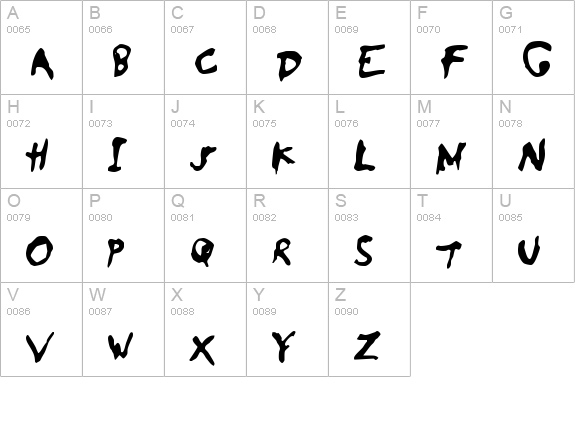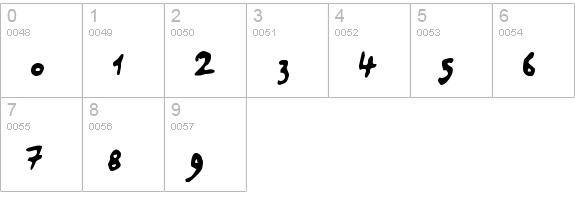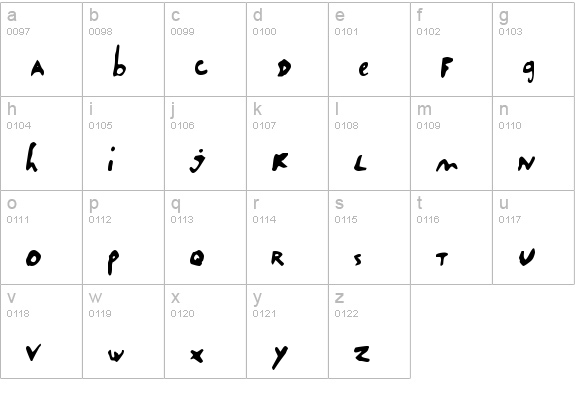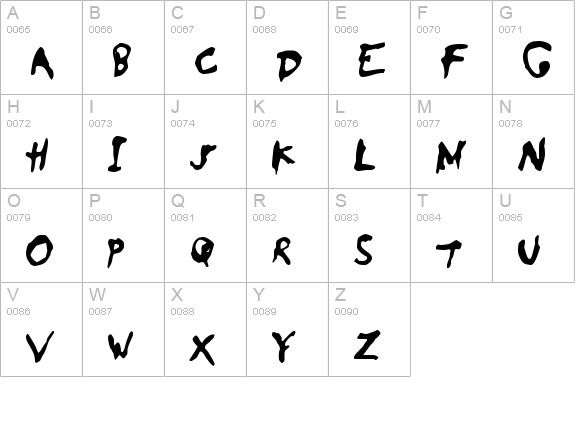
SaladeDeFruitsRaisin Font Details
Introducing SaladeDeFruitsRaisin, a delightful and whimsical font that will add a touch of playfulness to any design project. With its unique combination of curvaceous letterforms and charmingly irregular strokes, this font captures the essence of handwritten elegance. SaladeDeFruitsRaisin is the perfect choice for those seeking a font that exudes creativity and originality. Its organic and flowing shapes create a sense of movement and energy, making it ideal for designs that aim to captivate and engage the viewer. But what sets SaladeDeFruitsRaisin apart is not just its captivating design, but also the fact that it is completely free. That's right, this font is freely available to download at FontsMarket.com, providing you with the opportunity to enhance your projects without breaking the bank. Whether you're working on invitations, greeting cards, posters, branding, or any other creative endeavor, SaladeDeFruitsRaisin will effortlessly bring a touch of whimsy and personality to your designs. Its versatility makes it suitable for both digital and print projects, ensuring that you can use it across various mediums. With its generous x-height and easily legible letterforms, SaladeDeFruitsRaisin is not only visually appealing but also highly functional. It ensures that your message comes across clearly and effectively, while still maintaining a sense of style and uniqueness. So don't miss out on this incredible opportunity to enhance your design projects with SaladeDeFruitsRaisin. Download it for free at FontsMarket.com and let your creativity soar. Whether you're a professional designer or a hobbyist, this font will be a valuable addition to your typographic toolbox.